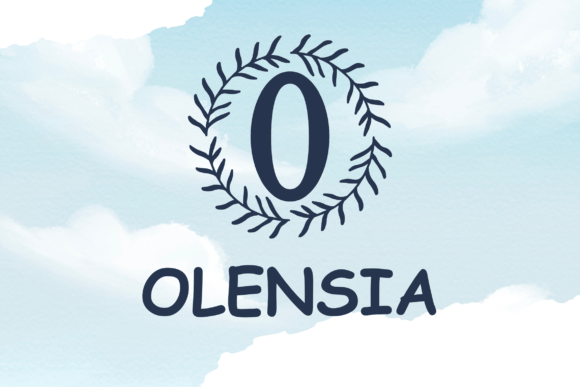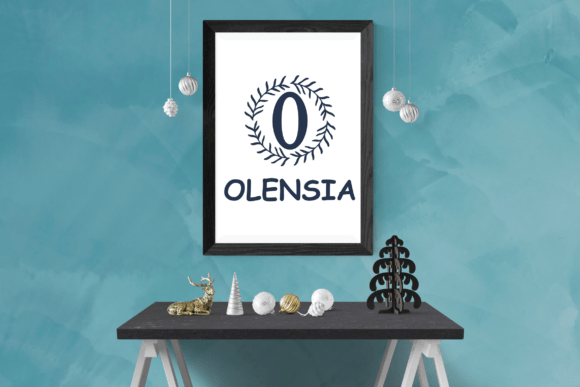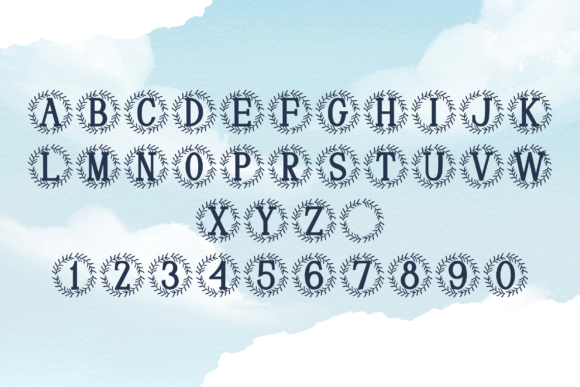
Introduction to Olensia Monogram Font
Meet Olensia, the Monogram Font Olensia Monogram turns simple initials into refined emblems with a soft, elegant feel that suits modern weddings and premium branding.
The strokes are smooth and balanced, so letters stay clear at any size Because counters remain open, tiny tags print crisp while large signage looks polished and gift-ready.
Key Features of Olensia Monogram Font
Why Choose Olensia Monogram Font?
Olensia Monogram Font offers exceptional quality and versatility, making it a valuable addition to your design toolkit. Whether you’re creating for personal projects or commercial use, Olensia Monogram Font delivers professional results.